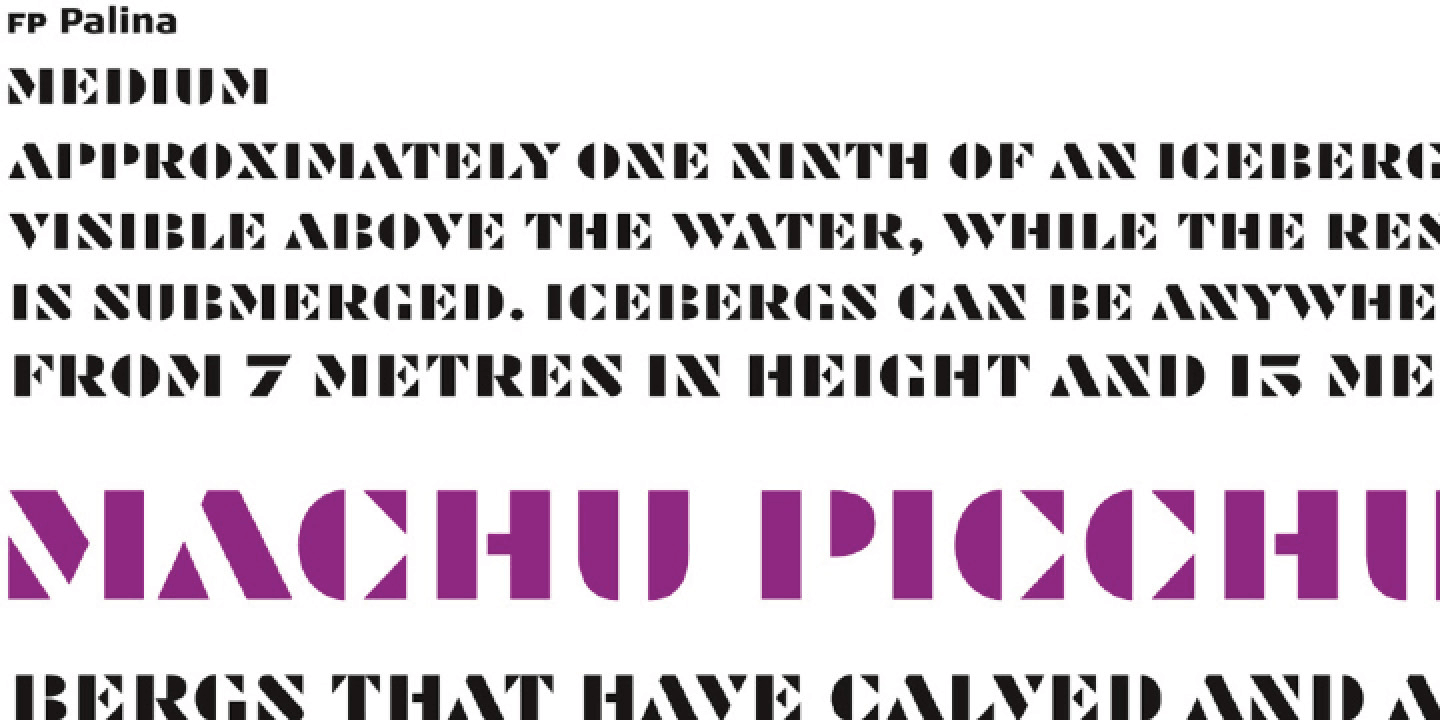
Designed by Ole Søndergaard, FP Palina is a stencil and art deco font published by Fontpartners.
FP Palina is a very simple and geometric, stencil typeface with a strong graphic design.
Foundry | Fontpartners |
Released | 2006 |
Styles | Art Deco, Stencil |
Designer | Ole Søndergaard |